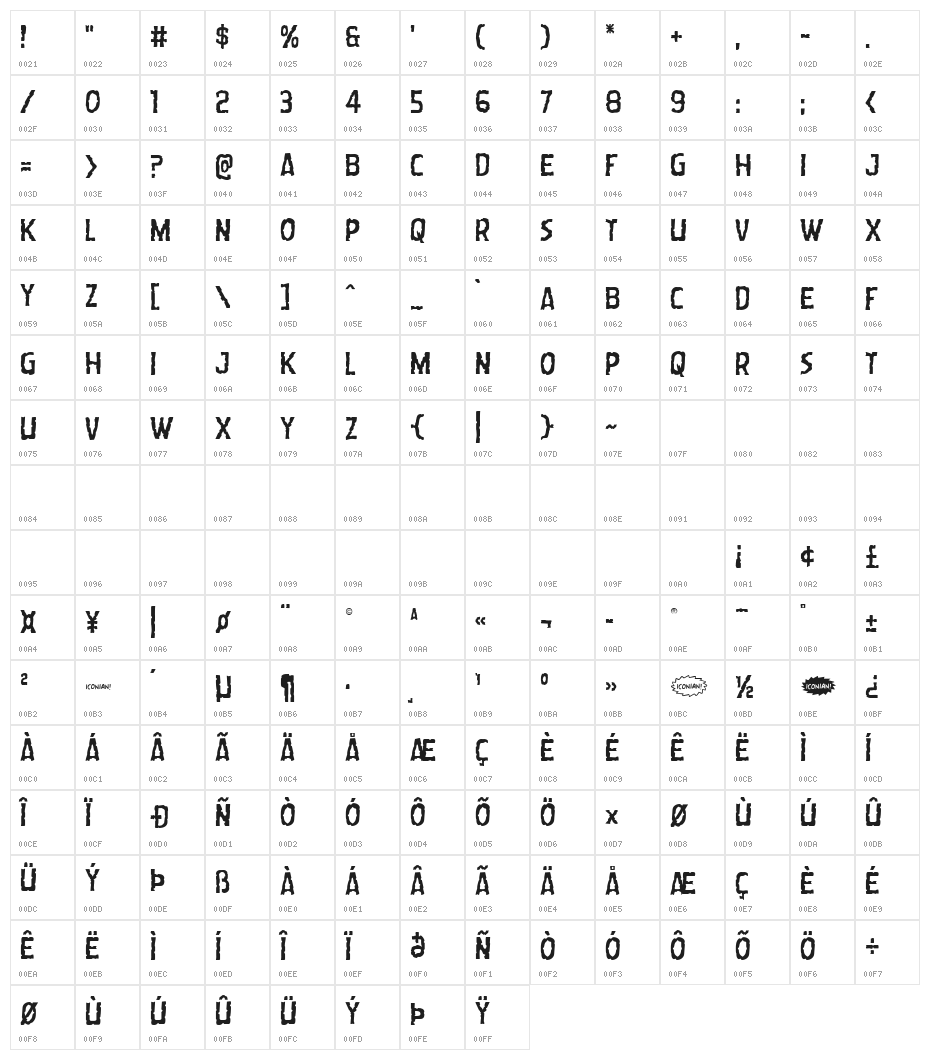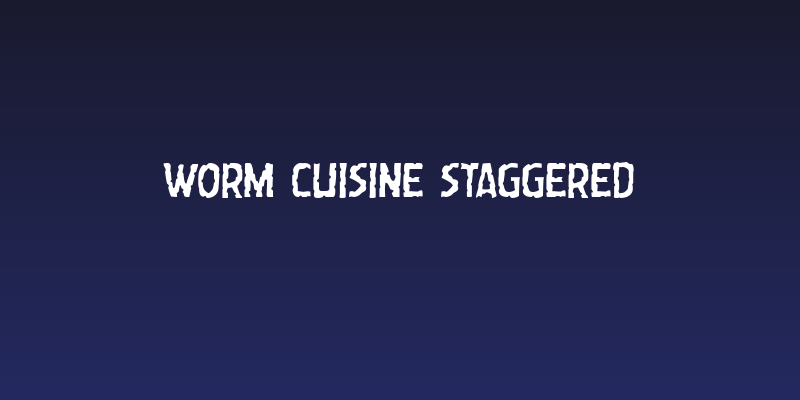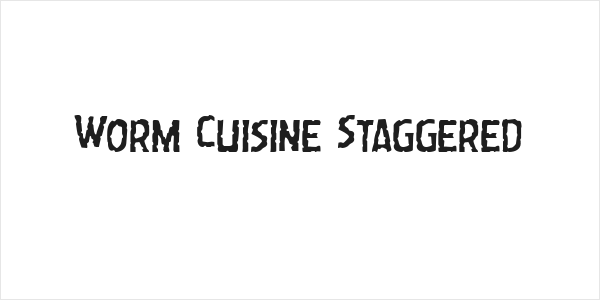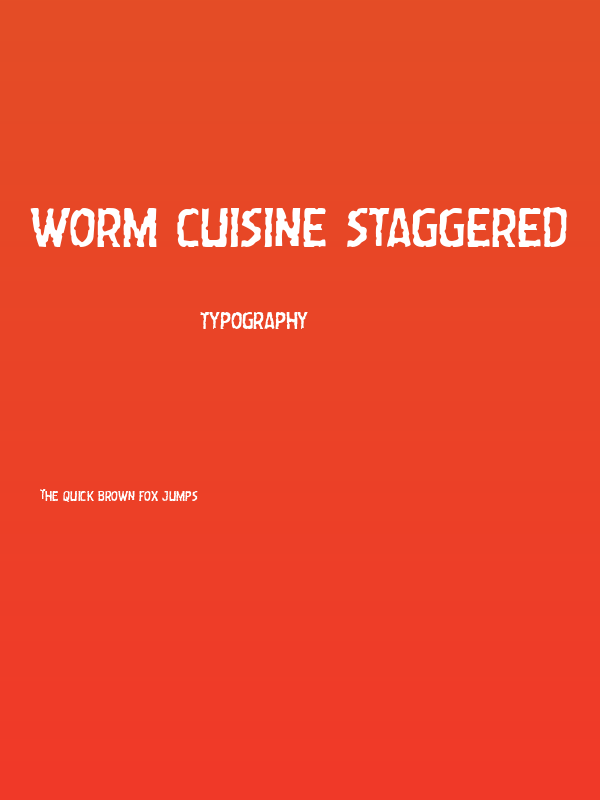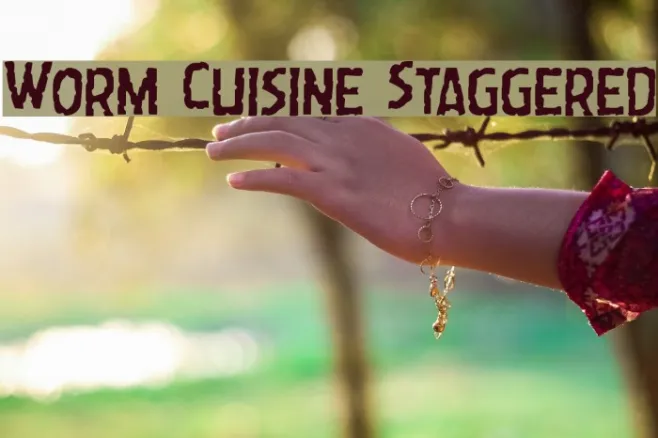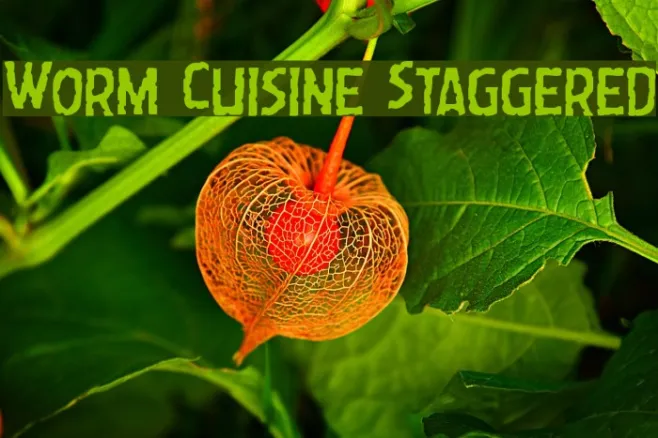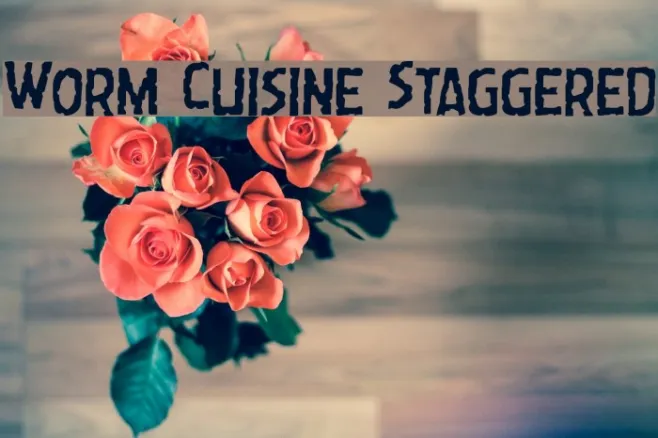
Worm Cuisine Staggered Font
Worm Cuisine Staggered Description
This font features a rugged and distressed appearance, with each character appearing as if it has been carved or eroded. The edges are uneven and jagged, giving it a unique, organic texture. The uppercase and lowercase letters maintain a consistent style, with a bold presence that commands attention. Numbers and special characters follow the same aesthetic, ensuring a cohesive look across all text. This font is ideal for projects that require a raw, edgy feel, such as horror-themed designs or grunge-inspired artwork.
| Proposed Projects | Ideal for horror-themed designs, grunge artwork, album covers, and edgy branding. |